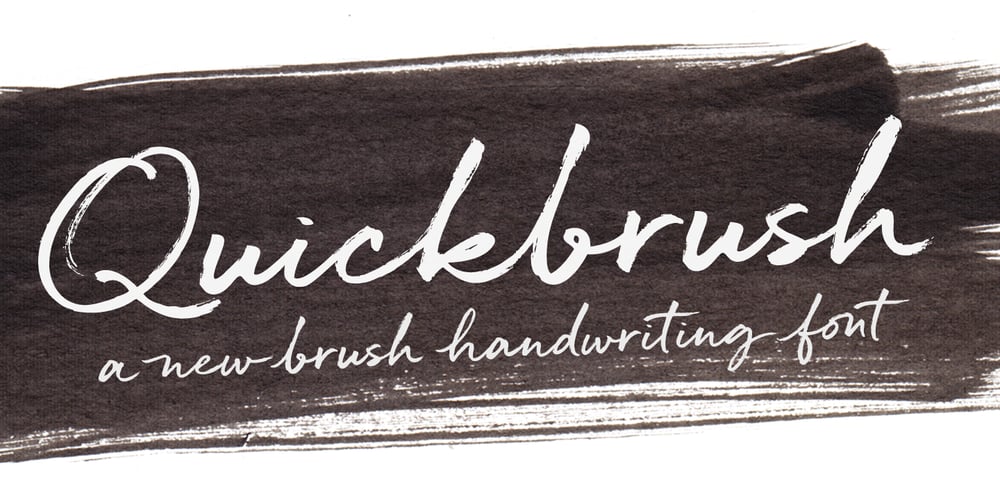
Quickbrush
Quickbrush font
Quickbrush Font Family was designed by Laura Condouris and published by Trial by Cupcakes. Quickbrush contains 1 styles and family package options. Like its cousin Quickpen, Quickbrush is an unfussy, confidently jotted script, with lots of rich texture to recreate the skips and jumps that appear in brush pen lettering. Contextual alternates for lowercase letters mimic starting and ending marks, to make each word look truly written by hand. It’s a typeface you’ll reach for again and again, for any project that needs a casual, handwritten touch.